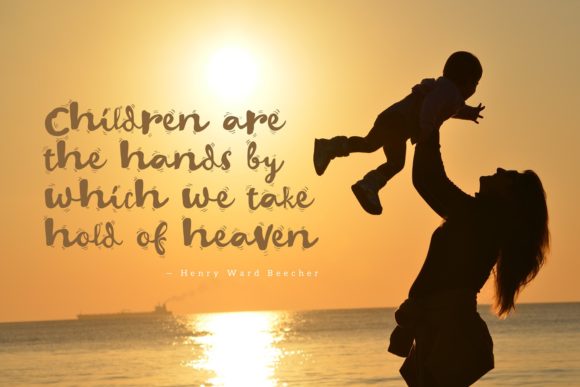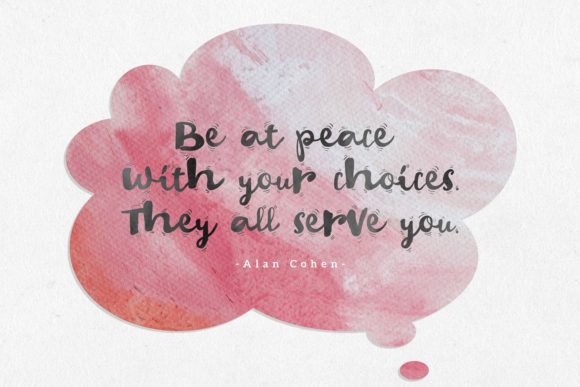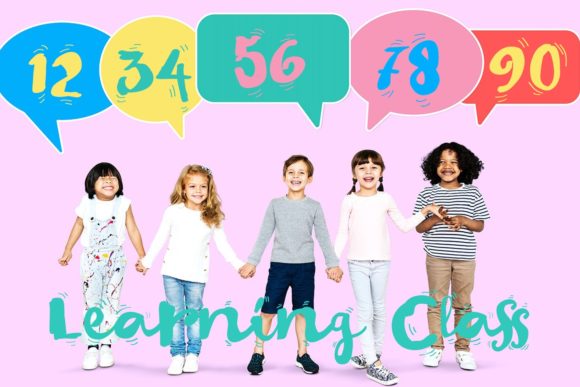
Introduction to Currant Font
Currant is a sweet and unique handwritten font.
Its natural style makes it incredibly fitting to a large pool of designs The only limit is your imagination.
Currant Font offers exceptional quality and versatility, making it a valuable addition to your design toolkit. Whether you’re creating for personal projects or commercial use, Currant Font delivers professional results.